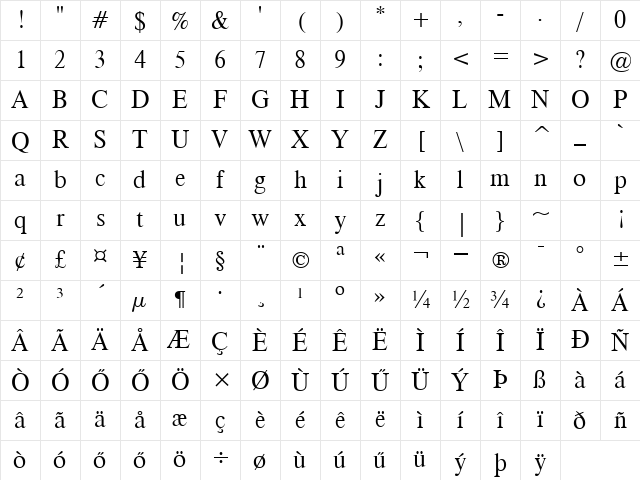
Complete H_Dutch 801 Hd BT Roman glyph index. Displaying only characters natively supported by H_Dutch 801 Hd BT Roman font.
H_Dutch 801 Hd BT is a composed and adaptable typeface that performs quietly and consistently across a wide range of design contexts.